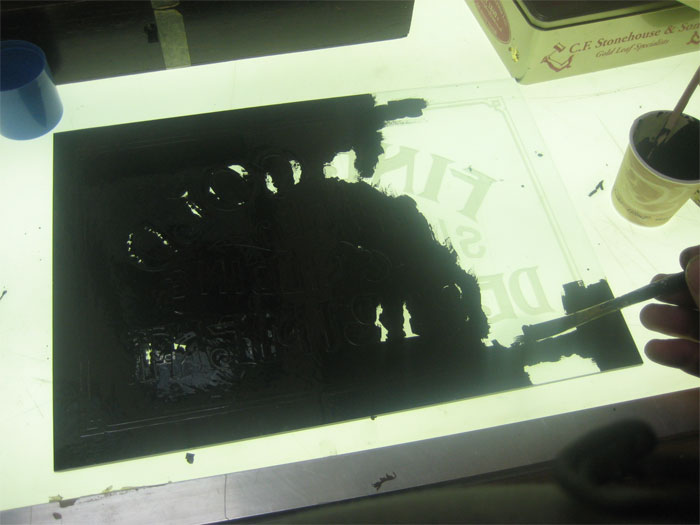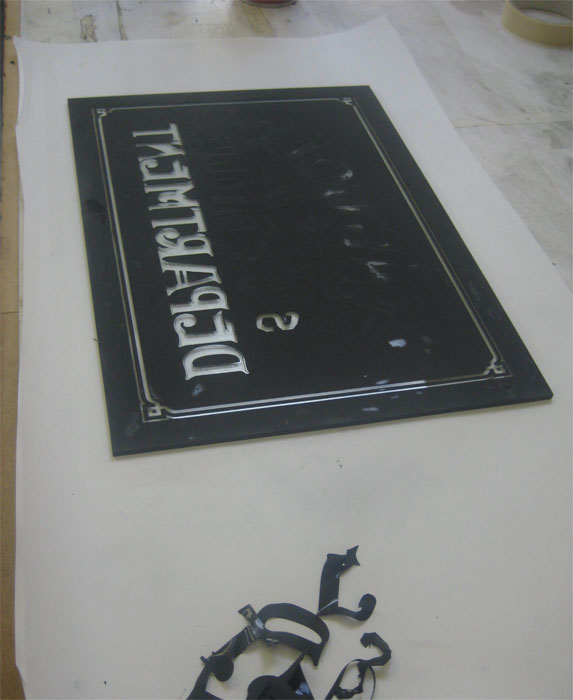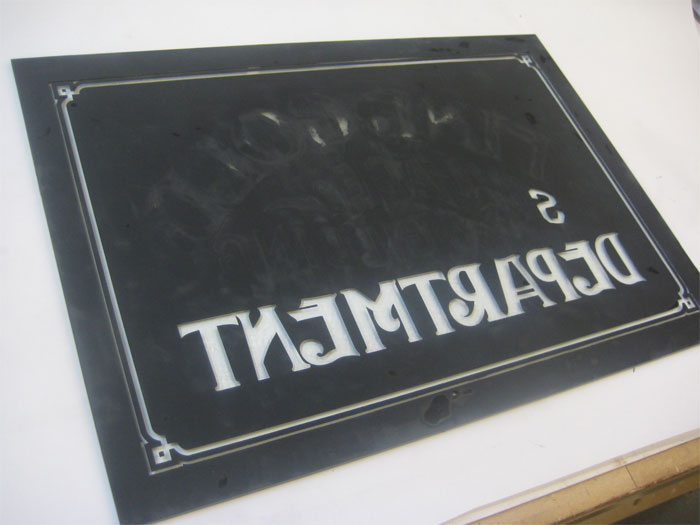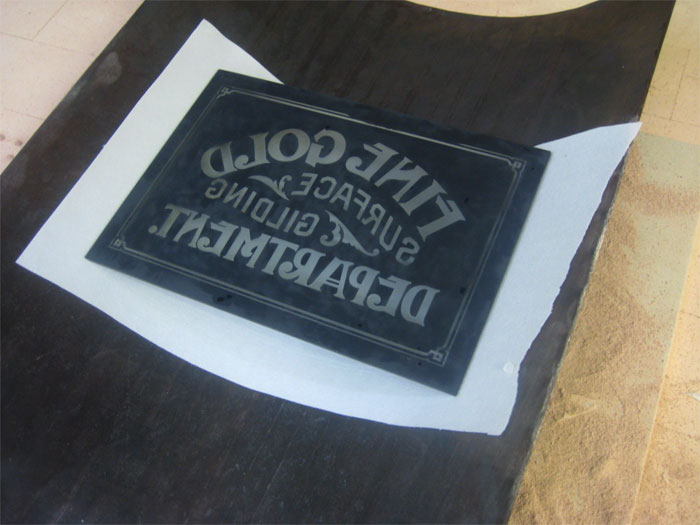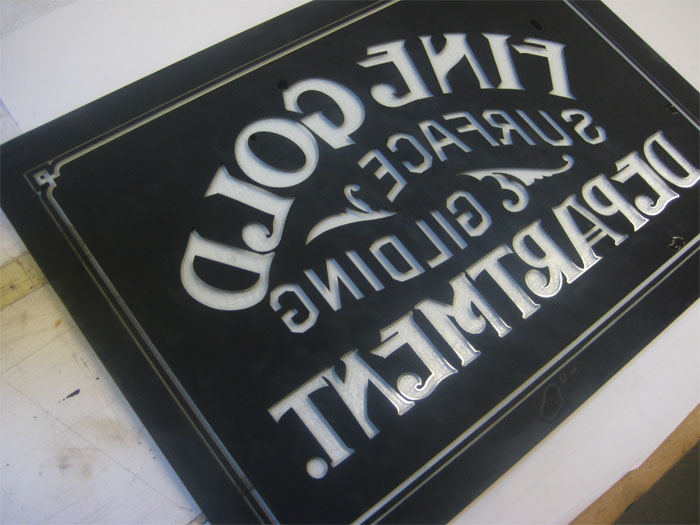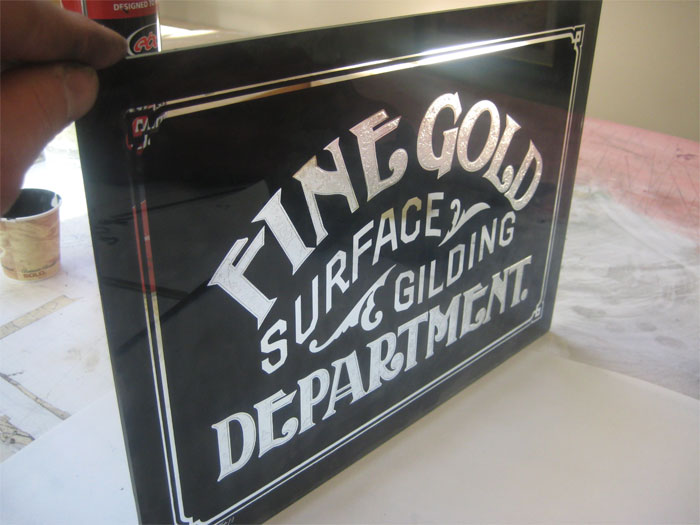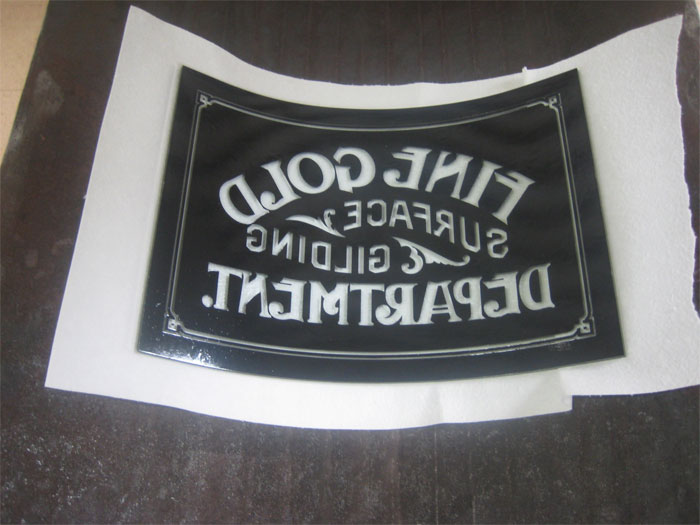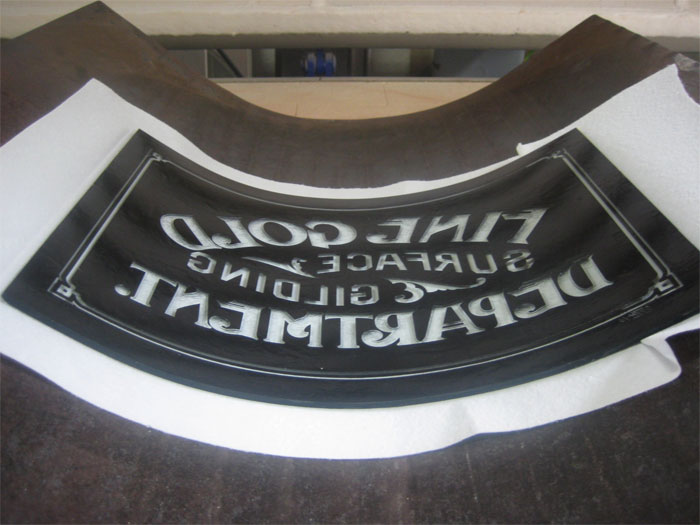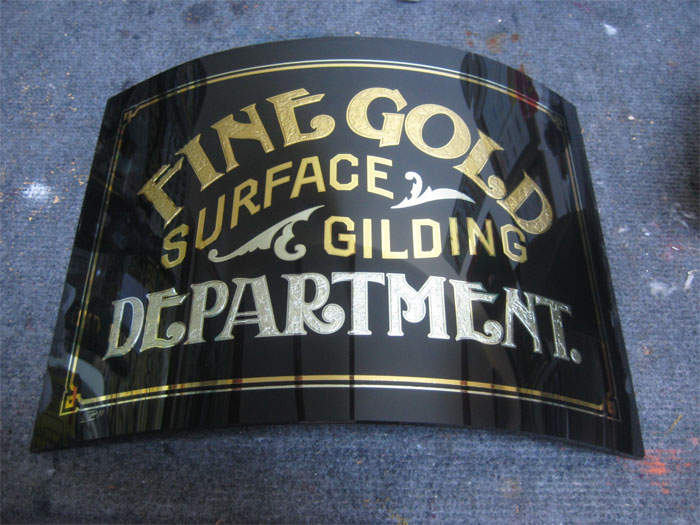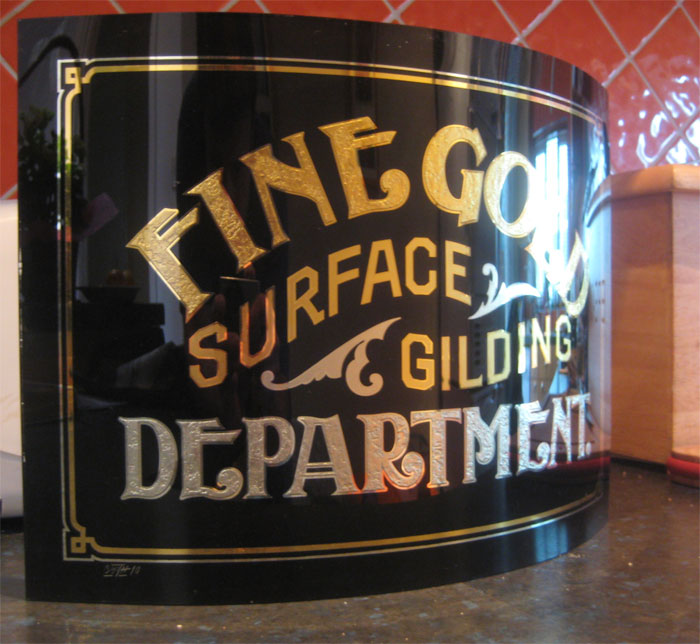
Heat Bent Glass Signs with Paint
I have been trying to find a paint that can be fired into glass at high tempratures while bending the glass into a curve. I made some panels in the past but was always left with a slight translusent finish and some break down and flaking.
I found a company here in this country that will make paints for this type of work and poss acid resist single etch.
I tried a stained glass powder paint which works but is too messy and leaves halos of frosting to the edge of letters. This new paint can be screened just like Fine Gold enamel and has an opaque finish once screened. Pat also put me onto a company that makes a paint simalar to this one but I am still waiting for a sample. This paint works very well with vinyl masks as you will see in these photos attached. I have a glass sign 3' x 4' to make for a gents hairdressers and it needs to be curved , my options are only screening due to the very fine detail but with this method it is poss to achieve permanent paint kiln fired into glass plus no breakdown of paint when gilding .Its downside is that you are left with an edge so gilding with ivory soap is recomended so that the gold floats into and fills the slight ridge.
I used some artwork that was sent to me by I think Danny Barronian a couple of years ago. Seemed apropriate to try it out on this design.
I forgot to add that the letters Fine Gold and Department were acid etched over brunswick black stipple and the Surface gilding text was hand signwritten with a clear varnished line leaving a glow line to shine at the edge
Re: Heat Bent Glass Signs with Paint
I was thinking about this process after we talked and envisioned how it might play out as well as doing the gilding it all in one.
After applying the black glass enamel ink, you should try spraying in some gold chloride in the open lettering areas after you pull the masking. (you might not even have to worry if the gold spray partially mists over the black enamel coating.)
That way while bending the glass in the mold, the enamel ink will fuse and the gold will fire into the letters all in one shot. Very permanent and you would not have to deal with the raised letter ridges and gold leaf problem.
The only thing that may have to be done differently might be a need to do two firings. First firing would be to fire the glass flat with only the black glass enamel so that it is completely set into the surface, then spray the gold chloride. Then on the second firing place the piece into the mold and bend and fire the gold onto the glass.
You would ONLY have to do the process in two firing if there was any conflict in trying to fire the "wet" black enamel and the "wet" gold in one go.
Hey, as long as there is a good sharp line without the two flowing together, doing it all in one go would be really great!
Re: Heat Bent Glass Signs with Paint
Hi Pat.
I was thinking along these same lines only yesterday Pat. I ordered some gold chloride last week to try a second test ,I agree the first coat would need to be heated and then a second firing with the gold.
Will keep you posted on that one. Erik also mentioned some other paint to try which I think is the same as tracing black which is used for stained glass windows.
I was thinking along these same lines only yesterday Pat. I ordered some gold chloride last week to try a second test ,I agree the first coat would need to be heated and then a second firing with the gold.
Will keep you posted on that one. Erik also mentioned some other paint to try which I think is the same as tracing black which is used for stained glass windows.
Re: Heat Bent Glass Signs with Paint
Blimey!- Are you guys Sign-men or Alchemists???
Thanks for bringing true genius to my desktop. i'll be watching this one closely
Re: Heat Bent Glass Signs with Paint
Probably more on the nut side than genius Wayne, I would say that Pat is the genius though.
Re: Heat Bent Glass Signs with Paint
I agree with Pat here Dave.
This is exactly how we were taught in the czech school.
Eventhough Pat probably allready knew it.....
1. Kiln fire the black.
2. Paint in the all the other colors, as long as they do not touch eachother fire this in the kiln.
3. Paint in the remaining colors and fire these up also.
4. Last firing: goldchloride.
If I am correct, the different goldchloride's (super gloss, gloss, 12krt, 24 krt etc.) available have some different firing temperatures needed.
Look for the instructions on the bottle.
I have to say that the goldchloride that is made for firing is different then the goldchloride that you use with angelgilding.
This reminds me, that I have to buy some gold 999 krt to make some goldchloride myself....
Testing testing.... will we ever be finished?
One more thing, if you will use the goldchloride, try to airbrush it, because even the best brushes will leave brushmarks....
This technique will need a removeable liquid glass paint resist.
This is exactly how we were taught in the czech school.
Eventhough Pat probably allready knew it.....
1. Kiln fire the black.
2. Paint in the all the other colors, as long as they do not touch eachother fire this in the kiln.
3. Paint in the remaining colors and fire these up also.
4. Last firing: goldchloride.
If I am correct, the different goldchloride's (super gloss, gloss, 12krt, 24 krt etc.) available have some different firing temperatures needed.
Look for the instructions on the bottle.
I have to say that the goldchloride that is made for firing is different then the goldchloride that you use with angelgilding.
This reminds me, that I have to buy some gold 999 krt to make some goldchloride myself....
Testing testing.... will we ever be finished?
One more thing, if you will use the goldchloride, try to airbrush it, because even the best brushes will leave brushmarks....
This technique will need a removeable liquid glass paint resist.
Re: Heat Bent Glass Signs with Paint
Thanks for your help Erik. I airbrushed the silverstain onto the glass which leaves a better finish than the brush marks . this technique seems to be a simalar procedure. When I used the Gold Chloride before it worked well with a brush, but I was thinking of airbrushing it for this job. I understand the difference between the two golds and what they do but firing it twice makes sense. It may work in one go .
Re: Heat Bent Glass Signs with Paint
These pics show the glass with 24crt gold leaf and 16 crt goldleaf,surface gilding has a hand varnished centre line which was water gilded afterwards.
Re: Heat Bent Glass Signs with Paint
Congratulations looks great Dave!
So smooth and shinny, but then again very delicate in is design.
I love it!
Could you explain me why you took so much effort to get these new steps working.
What in these steps is easier then the way you did the Eigenbrot panels?
Would be nice to hear what the teacher learned.....
(By the way, how did you get your name so small in the bottomcorner?
Did you scratched it in the black paint?)
Your student here,
So smooth and shinny, but then again very delicate in is design.
I love it!
Could you explain me why you took so much effort to get these new steps working.
What in these steps is easier then the way you did the Eigenbrot panels?
Would be nice to hear what the teacher learned.....
(By the way, how did you get your name so small in the bottomcorner?
Did you scratched it in the black paint?)
Your student here,
Re: Heat Bent Glass Signs with Paint
Erik.
Thanks ,the difference is in the paint used on these panels is Nazdars apoxy black ink which works very well but will not stand the high temprature while bending glass. I needed a paint that could be screen printed, but also laying down a good density of black pigment that would stand heat and be part of the glass.
I remember talking with Rick about fine printed black lines and sliding them off a waxed background into position on concaved glass tablets (glass signs) a bit like a water slide transfer. There were problems trying to lay it into an area that curved at different angles so I thought this would be an easier option by printing the work in black lines on flat glass and then slumping the work. My biggest hurdle has been tracking down the paint ,they say this stuff can be printed which is what I was looking for yet it holds well in a brush also. 10 different colours can be mixed as well.
My name was scratched with a metal point . one more point to make ,positioning the vinyl mask on the curved signs (Eigonbrot) was difficult due to expansion of the glass so the letters had to be shortened over the full length of the design all equally
Thanks ,the difference is in the paint used on these panels is Nazdars apoxy black ink which works very well but will not stand the high temprature while bending glass. I needed a paint that could be screen printed, but also laying down a good density of black pigment that would stand heat and be part of the glass.
I remember talking with Rick about fine printed black lines and sliding them off a waxed background into position on concaved glass tablets (glass signs) a bit like a water slide transfer. There were problems trying to lay it into an area that curved at different angles so I thought this would be an easier option by printing the work in black lines on flat glass and then slumping the work. My biggest hurdle has been tracking down the paint ,they say this stuff can be printed which is what I was looking for yet it holds well in a brush also. 10 different colours can be mixed as well.
My name was scratched with a metal point . one more point to make ,positioning the vinyl mask on the curved signs (Eigonbrot) was difficult due to expansion of the glass so the letters had to be shortened over the full length of the design all equally
Re: Heat Bent Glass Signs with Paint
Perfect.
I can understand the vinyl mask positioning problems.
Recently I ruined my 3x4 feet 7 toned etching panel due to the fact that my Gerber plotter could not hold its origin.
Your 16krt looks so white, allmost silvered. Is it me?....
I can understand the vinyl mask positioning problems.
Recently I ruined my 3x4 feet 7 toned etching panel due to the fact that my Gerber plotter could not hold its origin.
Your 16krt looks so white, allmost silvered. Is it me?....
Last edited by erik winkler on Thu May 06, 2010 5:14 am, edited 1 time in total.
Re: Heat Bent Glass Signs with Paint
Very nice Dave. I sure wouldn't mind having my own kiln for things like this.
I have access to one but need to use it sparingly so I don't become a nusence.
I recently bought a new airbrush and the person whom I bought it from knows I
like to do glass signs. This person alerted me to glass paint that is made for use
with heat, in an oven or kiln. I will have to ask again what the name of it was and
do some research on it. It was nice seeing those Eigonbrot pieces again also.
I have access to one but need to use it sparingly so I don't become a nusence.
I recently bought a new airbrush and the person whom I bought it from knows I
like to do glass signs. This person alerted me to glass paint that is made for use
with heat, in an oven or kiln. I will have to ask again what the name of it was and
do some research on it. It was nice seeing those Eigonbrot pieces again also.
Re: Heat Bent Glass Signs with Paint
That piece turned out sweet. Now you have to try it without leaf gilding and try using the metal chlorides. Wham-Bam, like baking cookies
Re: Heat Bent Glass Signs with Paint
Thanks Jerry.
Would be interesting to see what kind of paint your friend is talking about,probably simalar material.
Just had some paint delivered from a company that Pat put me onto ,smells identical to the stuff I already have.
looks like Test time next week again.
Would be interesting to see what kind of paint your friend is talking about,probably simalar material.
Just had some paint delivered from a company that Pat put me onto ,smells identical to the stuff I already have.
looks like Test time next week again.
- Posts: 165
- Joined: Tue Jun 15, 2004 2:03 am
- Location: West Sussex.England
Re: Heat Bent Glass Signs with Paint
Nice outcome Dave-
That paint smells the same....... But what does it Taste like?
Re: Heat Bent Glass Signs with Paint
I have an other nice test for you:
What will happen if you mica etch parts that painted black and kiln fired with this paint?
Today I mica etched 11 glass pieces which I screened with two component black epoxy ink......
The ink totally failed and came of like a breeze
Epoxy ink can hold with silvering chemicals, but HF is a totally different story ofcourse.
I thought so, but maybe I am just to empirical
I have an other nice test for you:
What will happen if you mica etch parts that painted black and kiln fired with this paint?
Today I mica etched 11 glass pieces which I screened with two component black epoxy ink......
The ink totally failed and came of like a breeze
Epoxy ink can hold with silvering chemicals, but HF is a totally different story ofcourse.
I thought so, but maybe I am just to empirical
Re: Heat Bent Glass Signs with Paint
Erik. I forgot to tell you that I tried that a while back and it totally failed.
was it a job you were making.|?
Re: Heat Bent Glass Signs with Paint
Yes it is the job of 11 panels.
They all failed.....
I can not do anything but laugh about it, because crying will not help haha.
Just did a new run of screening on top of the oher, almost no ghostmarks...
They all failed.....
I can not do anything but laugh about it, because crying will not help haha.
Just did a new run of screening on top of the oher, almost no ghostmarks...
Re: Heat Bent Glass Signs with Paint
It is good that you can Laugh about it Erik. I came close to crying this morning after knocking the corner of a cut glass panel on a metal handle.
I Lost some concentration for a split second when I was reaching for a wet cloth and banged it write on the tip of a corner ,lost just a small piece the size of an ant. I at to put the piece down just to get over it as it had taken a long time to make to get to this stage. will be more careful in the future.....
I Attached a little sign for a customer who has a restaurant in a place called Totnes here in Devon,I hope to also make a sign for the front of here shop soon.
This piece sits inside in a corner of a room. Used one of Larry's styles for the bottom text and not sure on the top one but tweaked it around slightly to make it work with the design.
I Lost some concentration for a split second when I was reaching for a wet cloth and banged it write on the tip of a corner ,lost just a small piece the size of an ant. I at to put the piece down just to get over it as it had taken a long time to make to get to this stage. will be more careful in the future.....
I Attached a little sign for a customer who has a restaurant in a place called Totnes here in Devon,I hope to also make a sign for the front of here shop soon.
This piece sits inside in a corner of a room. Used one of Larry's styles for the bottom text and not sure on the top one but tweaked it around slightly to make it work with the design.
Re: Heat Bent Glass Signs with Paint
I bumped two pieces already.... one is lost, one has a plinck that will disapear in the frame....
What is this with your ratio of work, do you have some chinese people working in that garage of yours?!
I am surely not that fast.
I noticed that the the piece you made is very small, did you use a vinyl mask for the black paint or was it screenprinted?
Have you ever noticed that the two component expoxy inks do not adhere the same to different krt of goldleaf?
23,75krt no problem, but with the 12krt the epoxy ink came of at some points and revealed the goldleaf again.....
Just repainted those spots and will try it again.
What is this with your ratio of work, do you have some chinese people working in that garage of yours?!
I am surely not that fast.
I noticed that the the piece you made is very small, did you use a vinyl mask for the black paint or was it screenprinted?
Have you ever noticed that the two component expoxy inks do not adhere the same to different krt of goldleaf?
23,75krt no problem, but with the 12krt the epoxy ink came of at some points and revealed the goldleaf again.....
Just repainted those spots and will try it again.
- Posts: 165
- Joined: Tue Jun 15, 2004 2:03 am
- Location: West Sussex.England
Re: Heat Bent Glass Signs with Paint
Those are very nice Dave, I like your layout. Thanks for posting!
Re: Heat Bent Glass Signs with Paint
Thanks lads .I Made this one last week again ,some drunk kicked the door in and gave me a gilding job.
Re: Heat Bent Glass Signs with Paint
Don't you just love your job sometimes?
I saw the other windows in real when I was visitng Dave and they looked soooooo good!
Miles Cullinane
- Posts: 7
- Joined: Mon May 11, 2009 11:18 am
Re: Heat Bent Glass Signs with Paint
Lovely Stuff Dave,
Is there a lemon gold in-between the white and deep gold in the 'Joanna's' piece, it looks blended like you taught in the workshop I did with you but I can't tell.
Have any pictures of these curved pieces in their final location, Would love to see them.
your stuff is a marvel to see. you'll have to do some curved pieces for the miniature shopfront.
Is there a lemon gold in-between the white and deep gold in the 'Joanna's' piece, it looks blended like you taught in the workshop I did with you but I can't tell.
Have any pictures of these curved pieces in their final location, Would love to see them.
your stuff is a marvel to see. you'll have to do some curved pieces for the miniature shopfront.
Re: Heat Bent Glass Signs with Paint
Hi Miles.
Thanks I still need to paint that up,but yes the glass curved would look good in there.
How are you doing are you keeping busy? I was in Waterford about 5 weeks ago nice old town is that far from you?
Thanks I still need to paint that up,but yes the glass curved would look good in there.
How are you doing are you keeping busy? I was in Waterford about 5 weeks ago nice old town is that far from you?
Re: Heat Bent Glass Signs with Paint
Hi Davey !
I have been reshearhing kilns and I was wondering a few things. I don't want to be to limited by size but as you know the bigger the more $$$
1) So what do you think a good general size ID would be ?
I found one that will do 20" x 30" square.
Does it matter if is a clam shell style
or
load down in style?
I have been reshearhing kilns and I was wondering a few things. I don't want to be to limited by size but as you know the bigger the more $$$
1) So what do you think a good general size ID would be ?
I found one that will do 20" x 30" square.
Does it matter if is a clam shell style
or
load down in style?
- Ovalkiln_Open_12key_W1.jpg (35.31 KiB) Viewed 77291 times
Re: Heat Bent Glass Signs with Paint
Rodrick,
You might also check out the EVENHEAT line of kilns. I have 3 bath tub style kilns, and 2 hexagon style.
These Evenheat kilns have run trouble free for me over the years and look as good as new.
I like their brand of computer that monitors the schedule of the firings.
Consider the "depth' of the kiln you purchase in regards to the type or depth of bending you plan to do and the level of the side elements.
You might also check out the EVENHEAT line of kilns. I have 3 bath tub style kilns, and 2 hexagon style.
These Evenheat kilns have run trouble free for me over the years and look as good as new.
I like their brand of computer that monitors the schedule of the firings.
Consider the "depth' of the kiln you purchase in regards to the type or depth of bending you plan to do and the level of the side elements.
Re: Heat Bent Glass Signs with Paint
Rod.
Size for your kiln would be around 5ft x 4 ft ,I find this big enough for the work I need to do but you never know what could come in the future so allways
keep that in mind when buying a kiln. I have seen them 15 ft long and 8 ft wide ther are probably bigger ones out there also.
My kiln is electric and is controlled by a computer reading ,easy to use and very accurate. The kiln I have came from Kilncare in Stoke on trent UK.
Size for your kiln would be around 5ft x 4 ft ,I find this big enough for the work I need to do but you never know what could come in the future so allways
keep that in mind when buying a kiln. I have seen them 15 ft long and 8 ft wide ther are probably bigger ones out there also.
My kiln is electric and is controlled by a computer reading ,easy to use and very accurate. The kiln I have came from Kilncare in Stoke on trent UK.